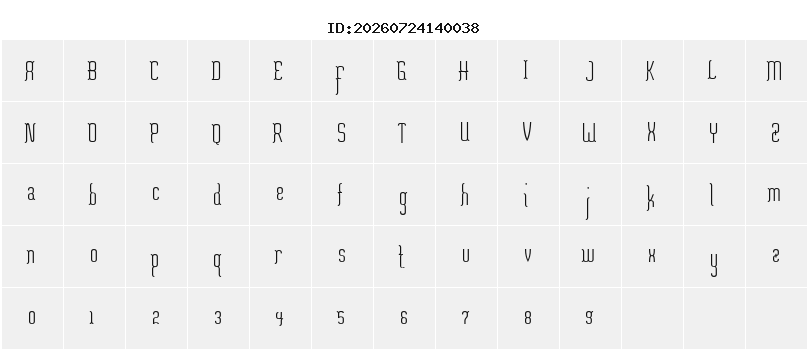
Misfortune.ttf is a modern, elegant sans-serif font designed for ultimate readability and visual harmony. Perfect for branding, headlines, web design, and print materials.